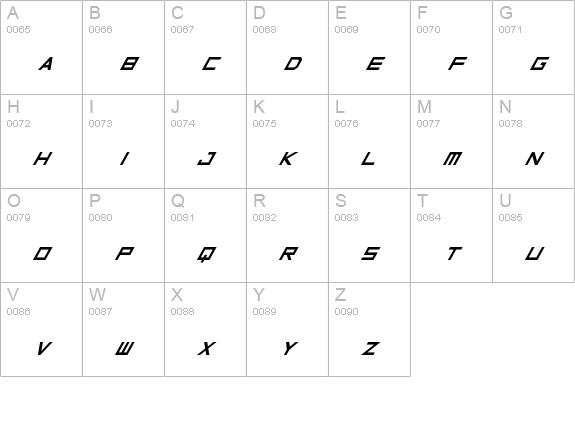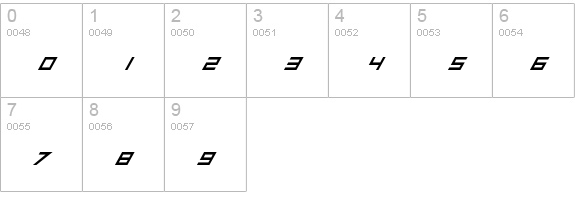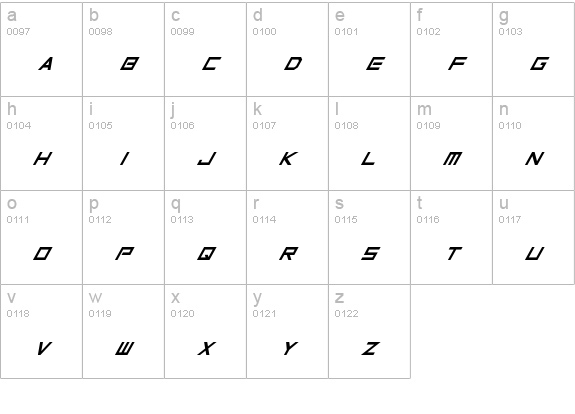
Inversionz Unboxed Italic is a distinctive, italic variant in the Inversionz typeface family \xE2\x80\x94 well suited to design and typography projects.
Introducing Inversionz Unboxed Italic, a captivating and versatile font that effortlessly combines elegance with a touch of playfulness. This unique typeface exudes a sense of rebellion and individuality, making it perfect for those who dare to stand out from the crowd. Inversionz Unboxed Italic is meticulously designed to add a modern and edgy feel to your projects. Its slanted and italicized letterforms create a dynamic and eye-catching visual effect, instantly drawing attention to your words. Whether you're designing a logo, crafting a poster, or creating a captivating social media post, this font will give your work a bold and distinctive look. What sets Inversionz Unboxed Italic apart is not only its exceptional design but also its accessibility. We believe that creativity should be free and accessible to all, which is why we are thrilled to offer this font to you for free. Yes, you heard it right! Inversionz Unboxed Italic is freely available to download at FontsMarket.com, allowing you to unleash your imagination without any constraints. Inversionz Unboxed Italic is perfect for a wide range of projects, including branding, advertising, packaging, and more. Its versatility shines through as it effortlessly adapts to both digital and print mediums, ensuring that your message is conveyed with utmost impact and clarity. Inspired by the rebellious spirit of the modern era, Inversionz Unboxed Italic is a font that defies the norm and empowers you to break free from the ordinary. So why settle for the mundane when you can add a touch of daring creativity to your designs? Download Inversionz Unboxed Italic for free today at FontsMarket.com and unlock a world of unlimited possibilities. Let your creativity soar and create captivating designs that leave a lasting impression. Don't be afraid to think outside the box – or better yet, unbox it with Inversionz Unboxed Italic!